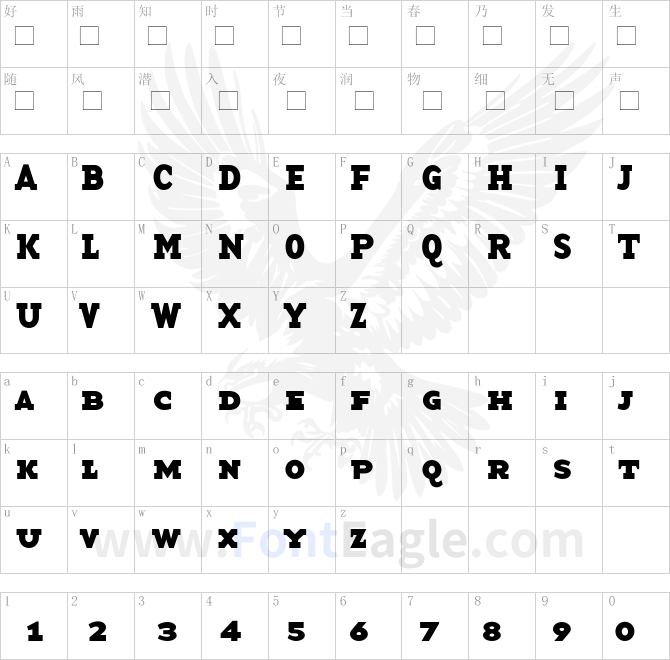
- Font name:BaseTwelveSerifSCB
- Font Subfamily ID:DTP-BaseTwelveSerifSCB
- Font Full Name:BaseTwelveSerifSCB
- Postscript:BaseTwelveSerifSCB
- Font Copyright:Copyright (C) 1995, Emigre Graphics; designed by Zuzana Licko